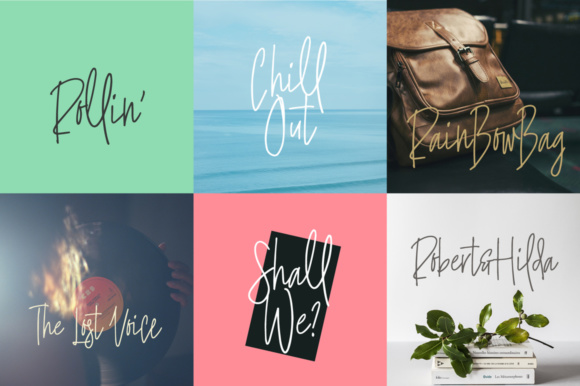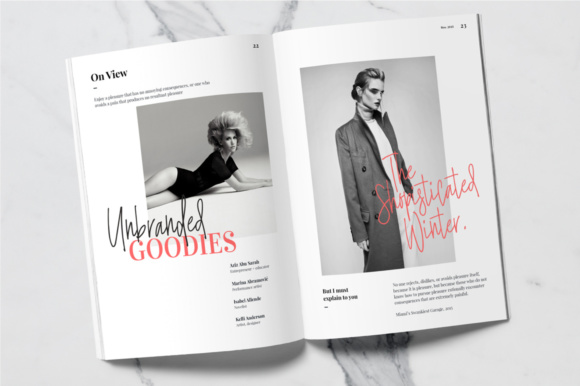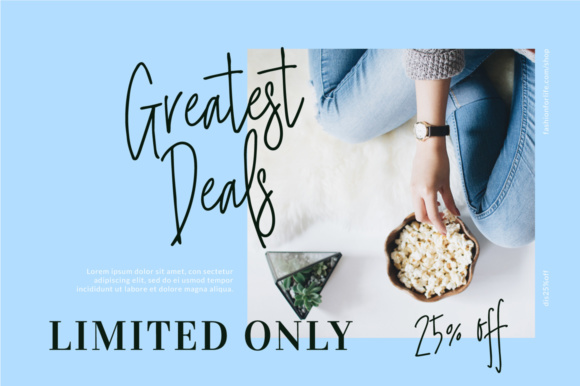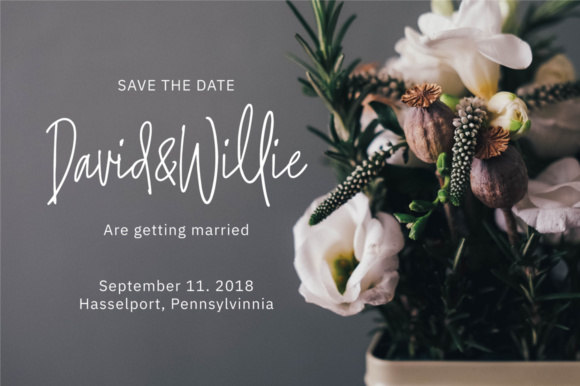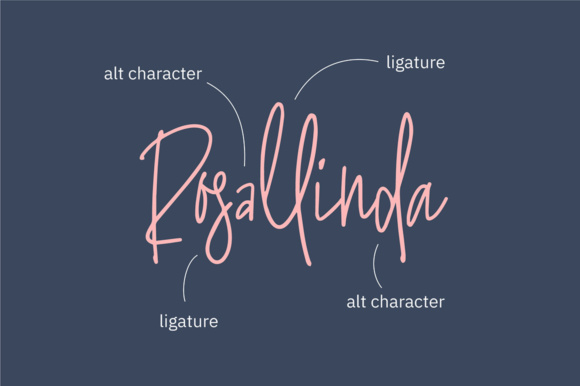
Introduction to Jack and Rose Font
Do you remember that magical moment when you stumbled upon the perfect font for your design project? For me, it was the moment I discovered Jack and Rose Font, a stunning natural handwritten script font that instantly elevated my creative project. The way the letters flowed together, the subtle imperfections, and the unique charm it brought to the table – it was love at first sight!
As a designer, you know the importance of finding the right font to bring your vision to life. Jack and Rose Font is a game-changer, offering a personal touch that sets your designs apart from the rest. Whether you’re working on a wedding invitation, a greeting card design, or a branding project, this font is sure to impress. With its transparent background and high-quality design, it’s the perfect resource for any creative project.
Key Features of Jack and Rose Font
• Unique, hand-drawn design with a romantic and elegant feel, perfect for creative projects.
• Includes a transparent background, allowing for easy customization and layering.
• Large character set with over 200 glyphs, including Latin, Cyrillic, and Greek alphabets, as well as punctuation and symbols.
• Resolution-independent design, making it suitable for use in print and digital applications at any size or resolution.
• Perfect for wedding invitations, love letters, and other romantic designs that require a touch of elegance and sophistication.
Honest Review: Jack and Rose Font
As a designer, I’m always on the lookout for unique and high-quality design resources to elevate my creative projects. The Jack and Rose Font is one such find that caught my attention.
Here are the things that work well about this font:
• ✨ The font’s elegant script style adds a touch of sophistication to any design project.
• ✨ The transparent background allows for seamless integration with various design elements.
• ⚠️ The font’s limited character set may not be suitable for projects that require a wide range of characters.
• ⚠️ The font may not be as versatile as other script fonts on the market.
Overall, the Jack and Rose Font is a solid choice for designers looking for a high-quality, elegant script font for their creative projects. While it may have some limitations, its unique style and transparent background make it a valuable addition to any design resource library.
How to Use Jack and Rose Font
The Jack and Rose Font is a unique and beautiful design resource perfect for creative projects that require a touch of elegance. This high-quality font features a transparent background, making it versatile for various design applications.
Tips for Getting the Most Out of Jack and Rose Font
To get the most out of the Jack and Rose Font, use it in combination with other design elements to create a cohesive and visually appealing design. Experiment with different font sizes, colors, and styles to achieve the desired effect.
The Jack and Rose Font is ideal for various design projects, including:
• Wedding invitations and stationery
• Branding and logo design
• Wedding decorations and signage